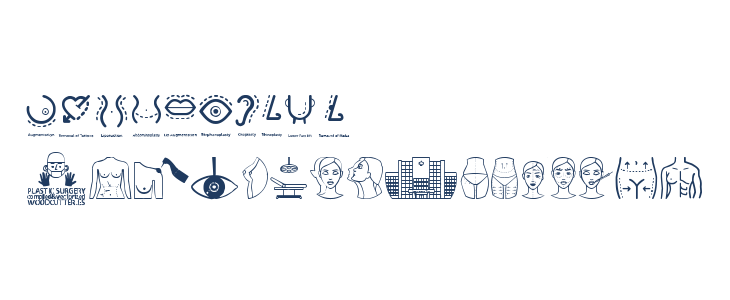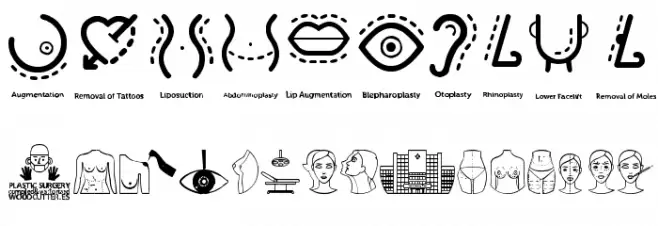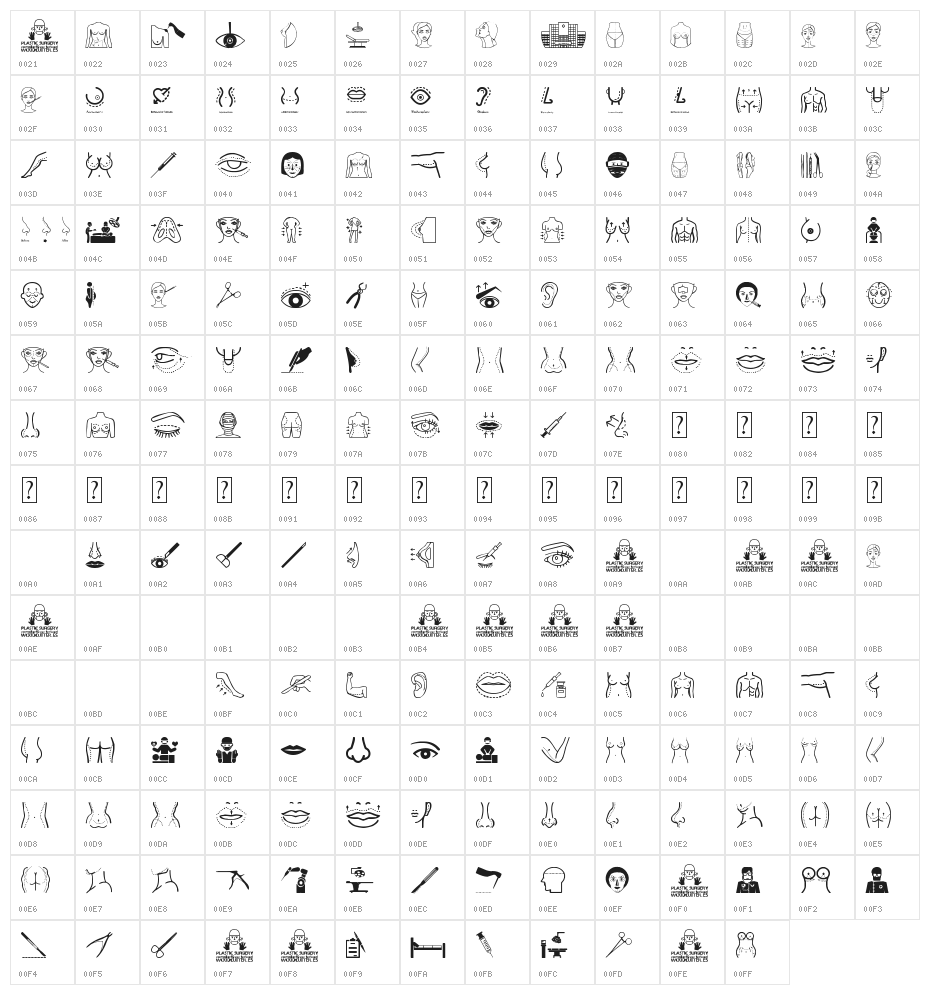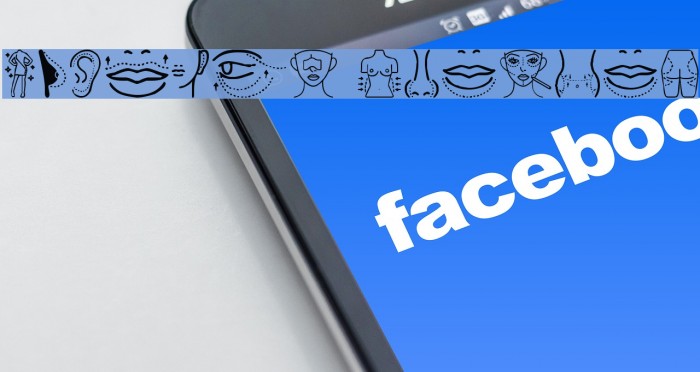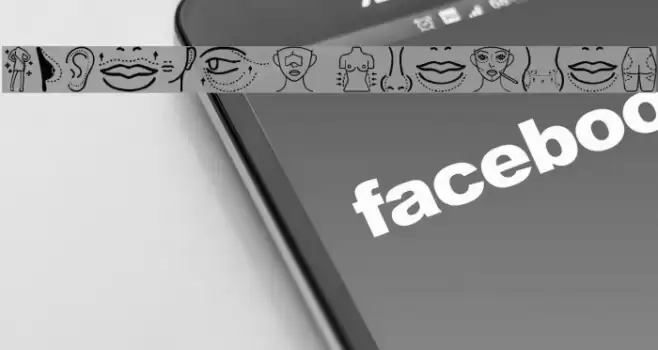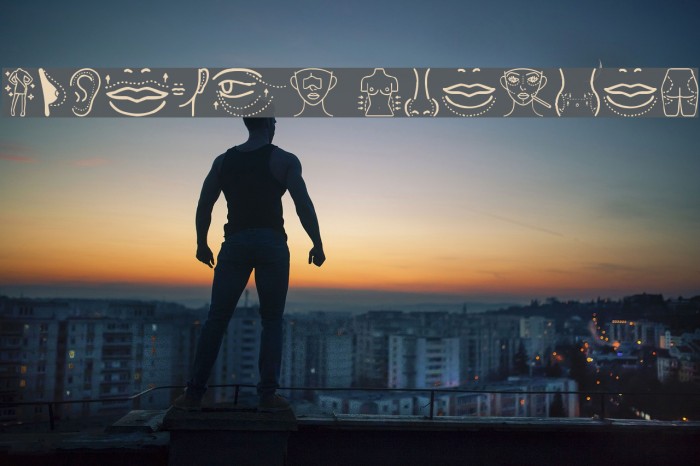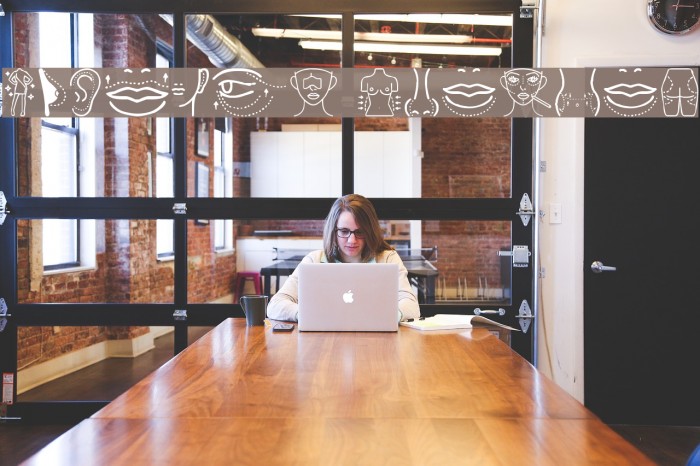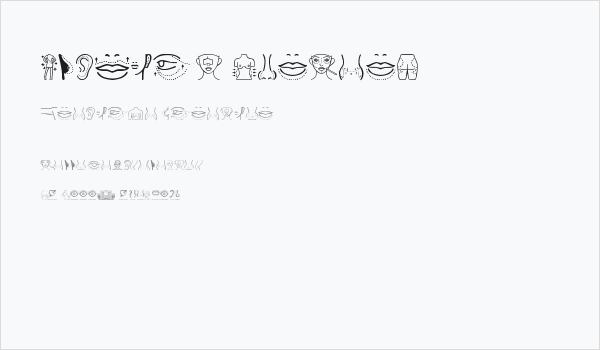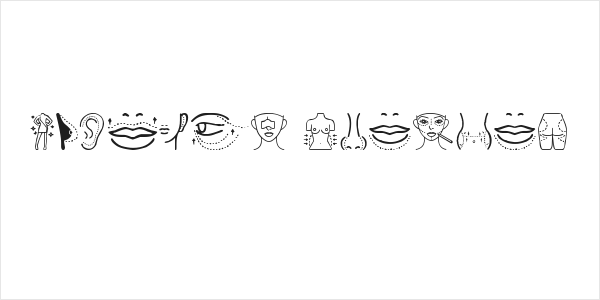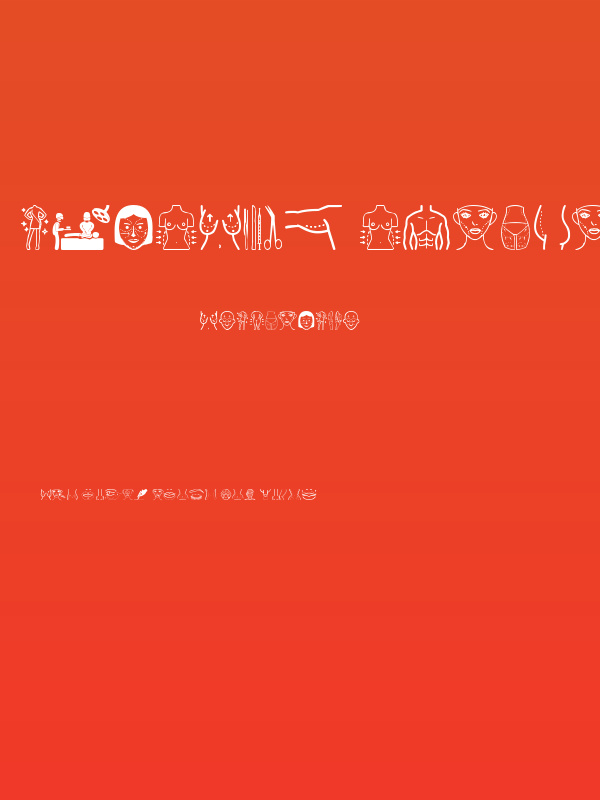
Plastic Surgery Font
Plastic Surgery Description
A pictogram-based decorative font featuring stylized icons and illustrations related to plastic surgery, medical procedures, and body modification. Each character is represented by a unique, minimalistic black-and-white drawing, often with dotted lines to indicate surgical marks or areas of focus.
| Overall Style | Decorative, Thematic, Modern |
| Use Case | Icons, Infographics, Themed visual communication, Educational graphics |
| Proposed Projects | Medical infographics, healthcare presentations, clinic branding, educational materials, themed posters. |